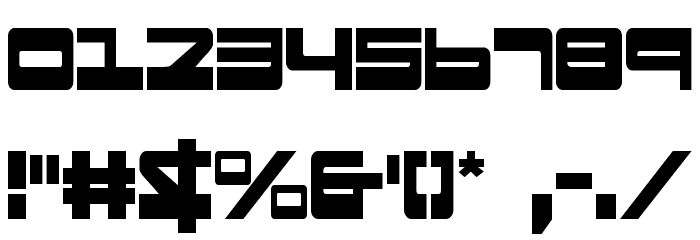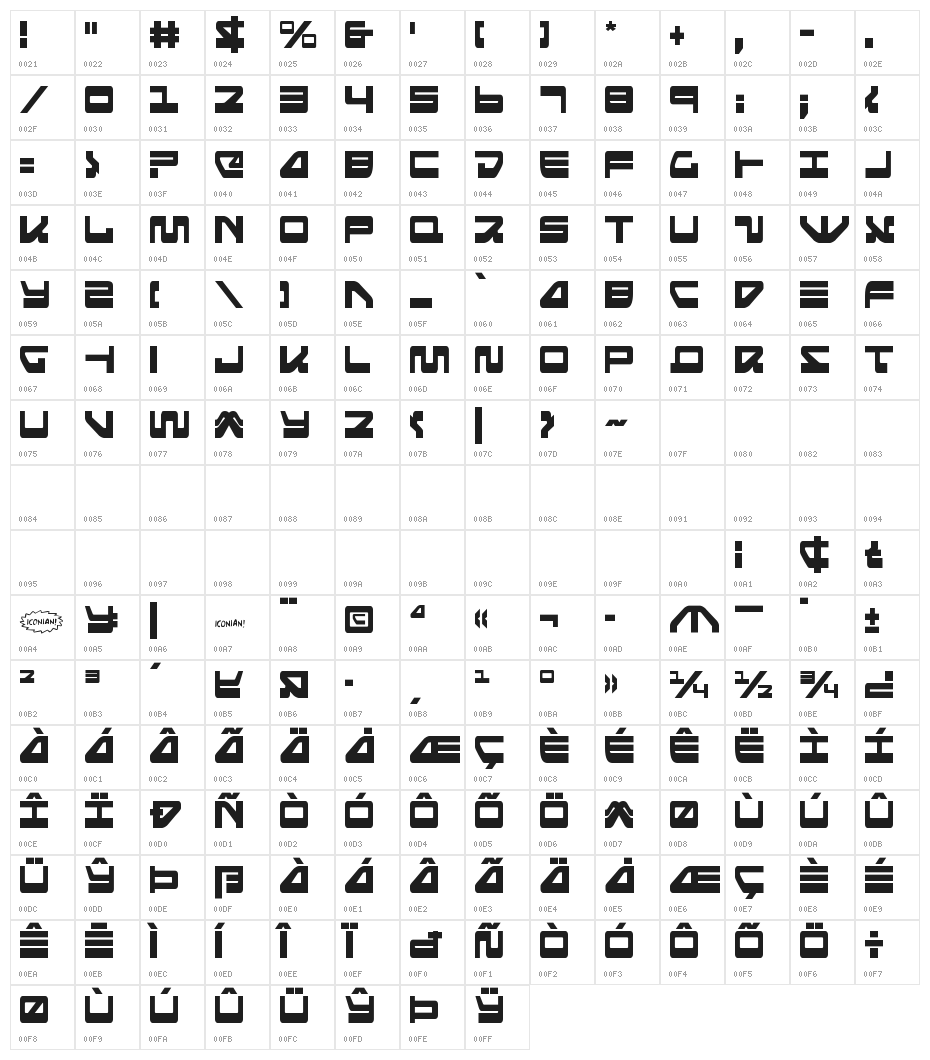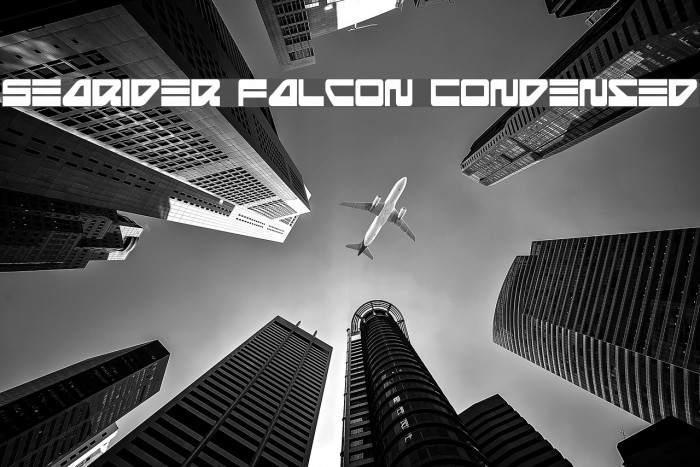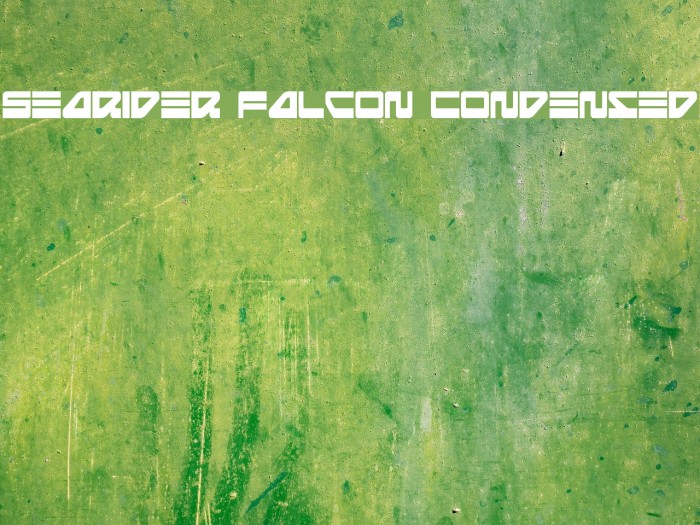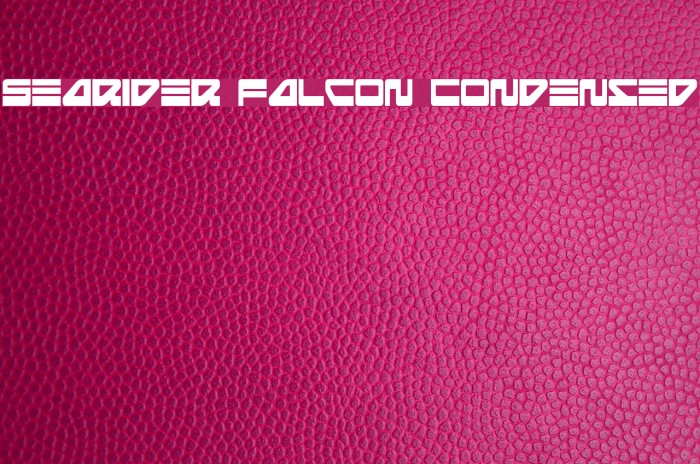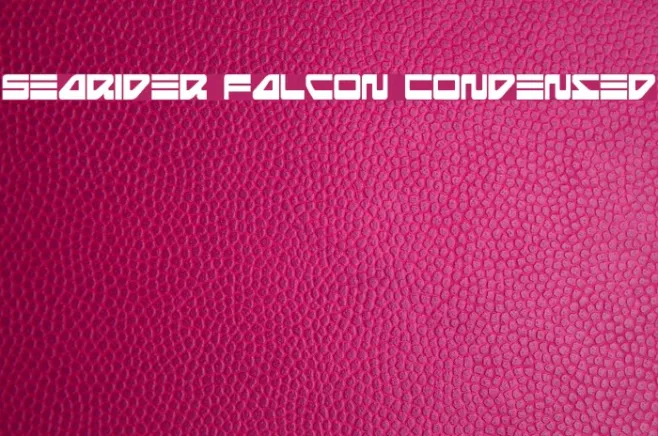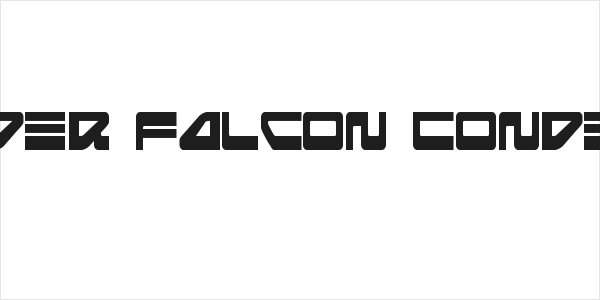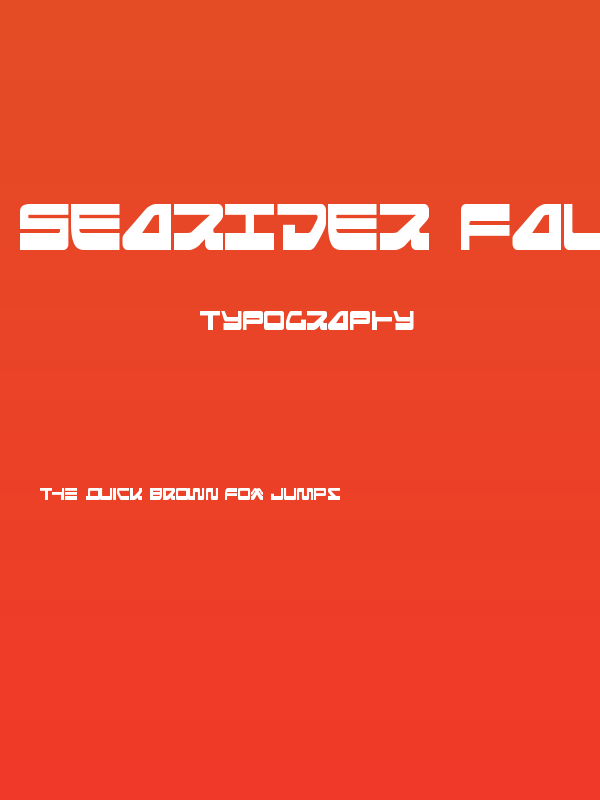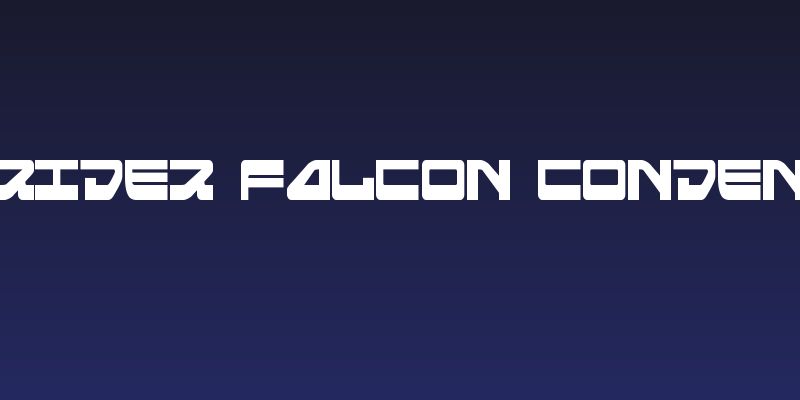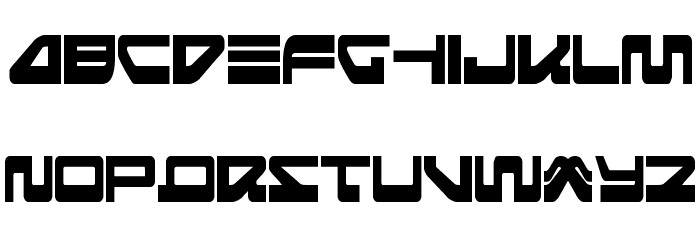
Searider Falcon Condensed Font
Searider Falcon Condensed Description
This font features a bold and futuristic design with a condensed structure, characterized by its geometric and angular shapes. The letters are crafted with a strong emphasis on horizontal and vertical lines, giving it a mechanical and industrial feel. The uppercase and lowercase letters maintain a consistent style, with sharp edges and minimal curves. The numerals and special characters follow the same design principles, ensuring uniformity across all glyphs. This font's unique style makes it stand out, suitable for projects that require a modern and edgy aesthetic.
| Proposed Projects | Ideal for sci-fi themed designs, technology branding, video game titles, and futuristic posters. |